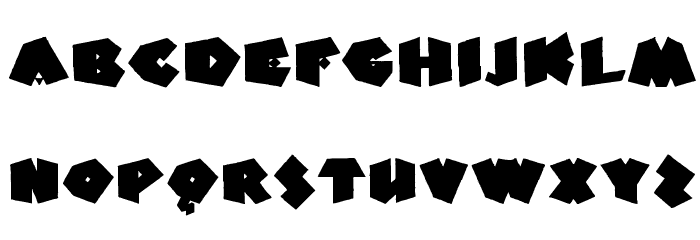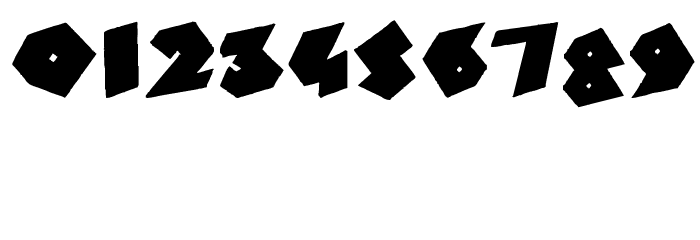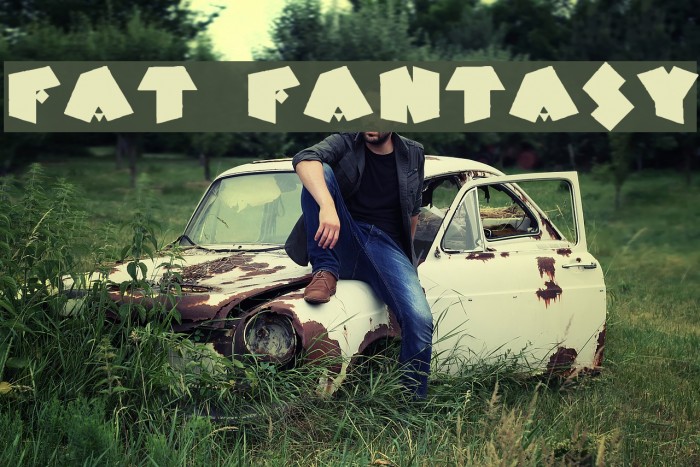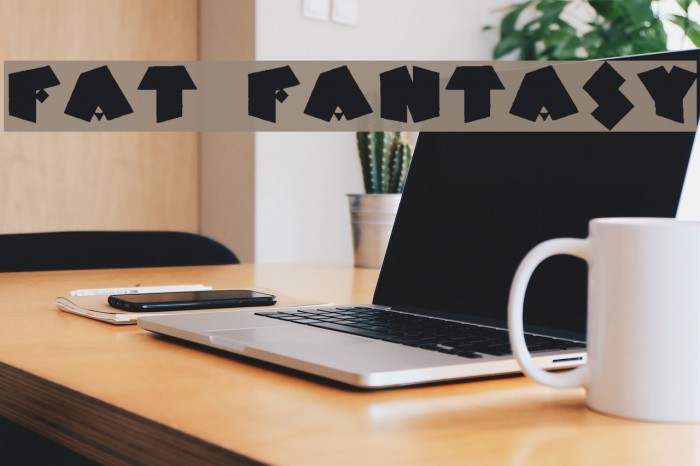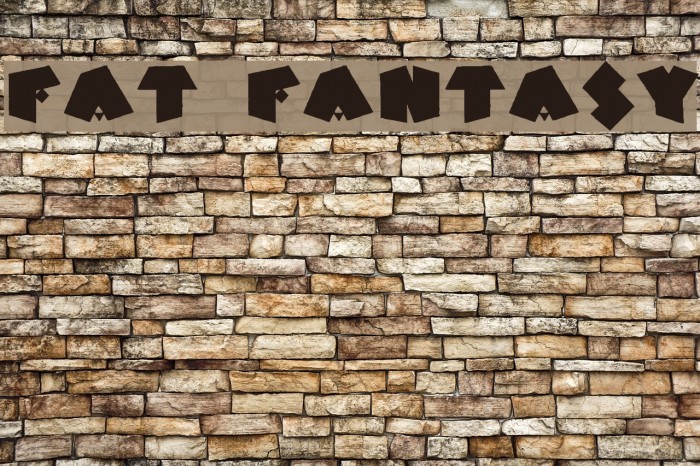
Fat Fantasy Font
This font features a bold, geometric style with a playful and chunky appearance. The characters are heavily stylized, with sharp angles and irregular shapes that give them a dynamic and energetic feel. The font's design incorporates a sense of movement and whimsy, making it stand out with its unique and eye-catching form. The uppercase and lowercase letters maintain a consistent weight, contributing to a cohesive look. The numbers and special characters follow the same bold and angular design, ensuring uniformity across all elements.
A bold, geometric font with a playful and chunky style.
- Proposed Projects: Ideal for use in children's books, comic titles, playful branding, and video game graphics.
- Overall Style: Playful, Energetic, Modern